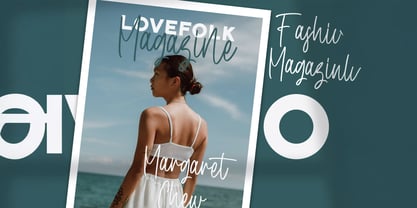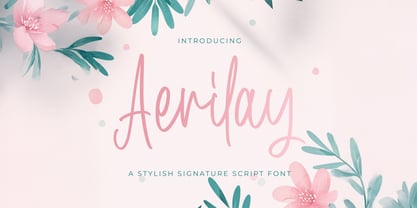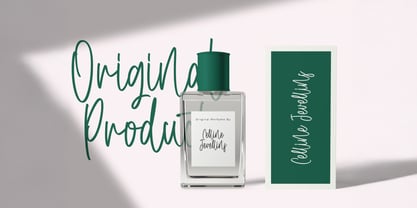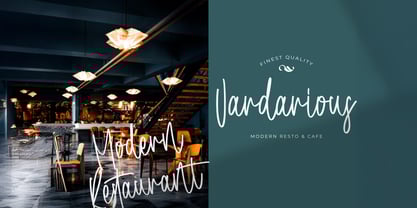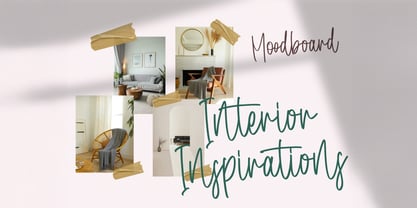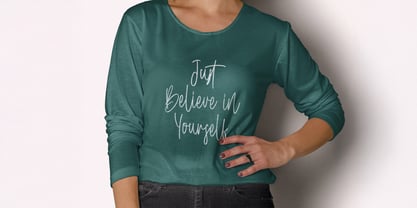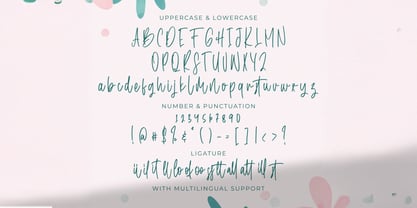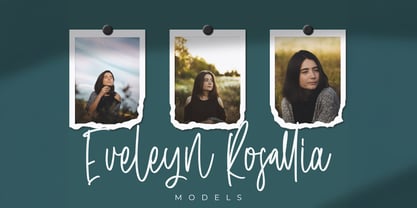
Die Schriftfamilie Aerilay wurde von Virgiawan Listanto entworfen und von Stringlabs Creative Studio veröffentlicht. Aerilay enthält 1 Stile.
Aerilay is a smooth and charming handwritten font with a natural, effortless flow. With its clean lines and graceful curves, Aerilay brings a touch of warmth and personality to any project perfect for adding a handwritten feel that’s both modern and elegant. Whether you’re designing branding, invitations, or social media content, Aerilay delivers a fresh, approachable vibe that feels personal and polished.
Aerilay